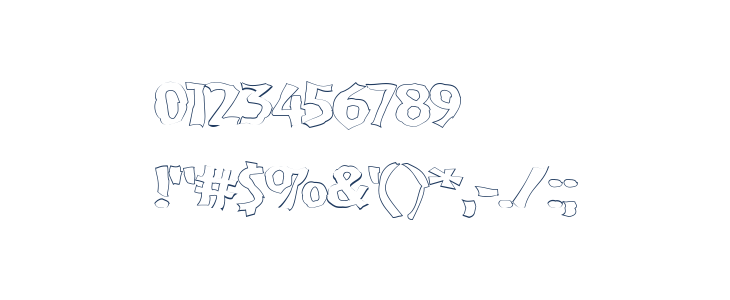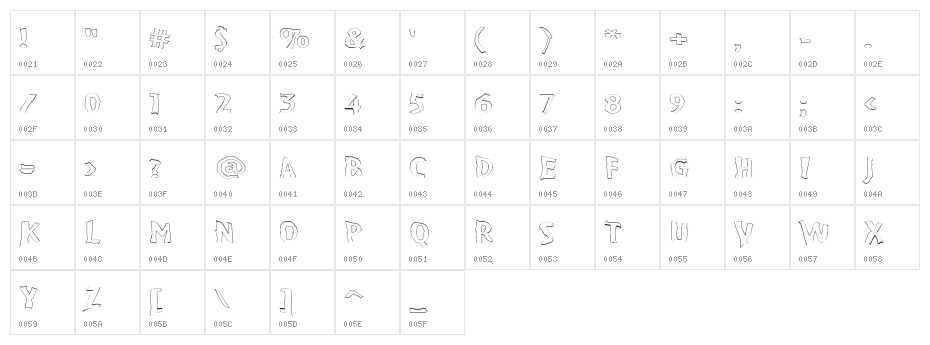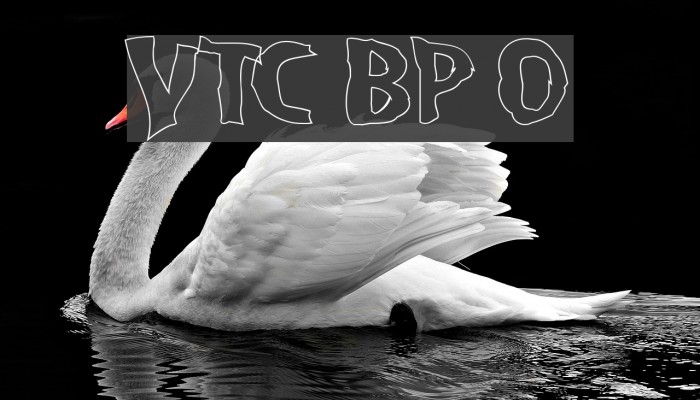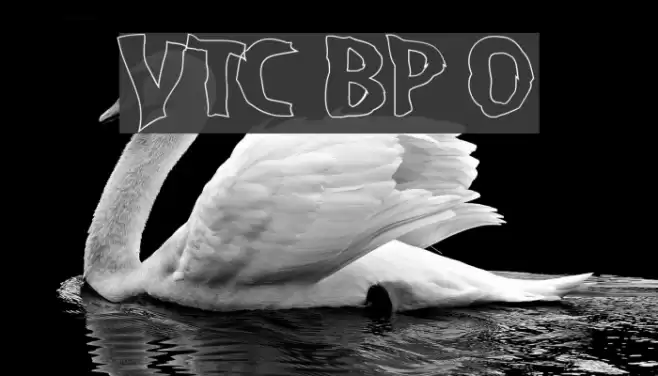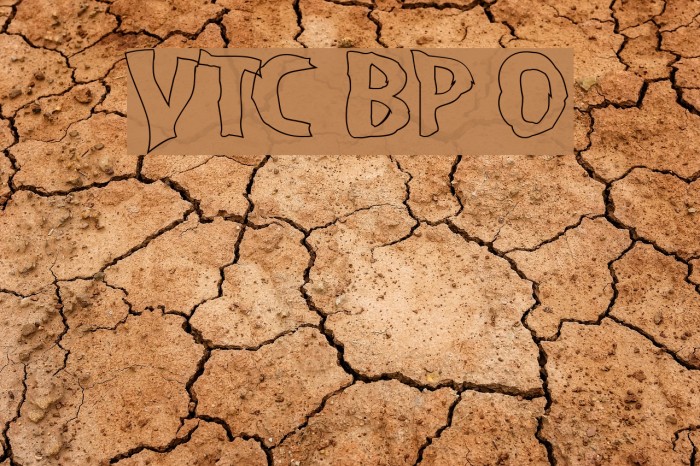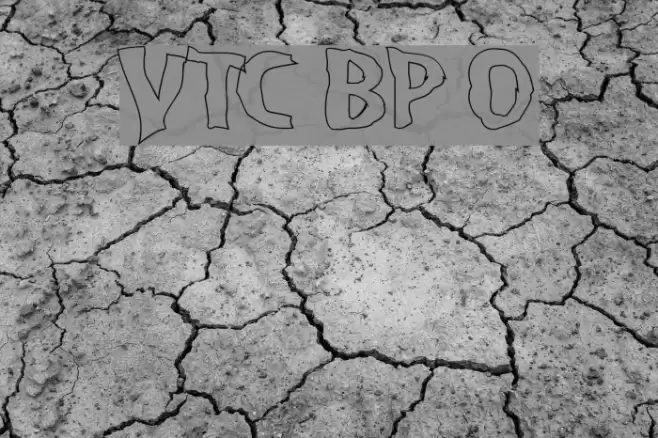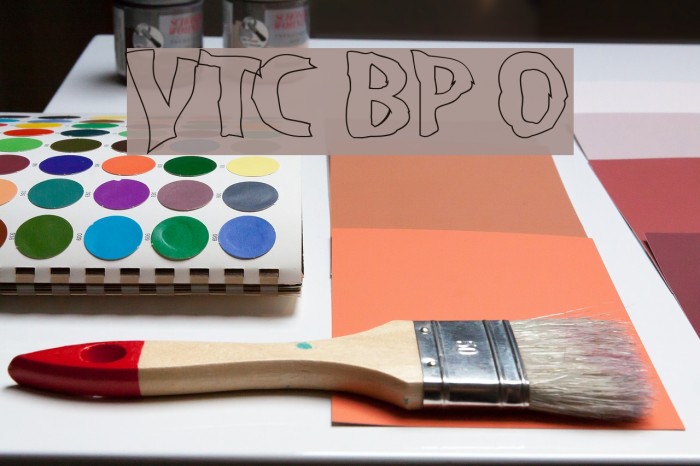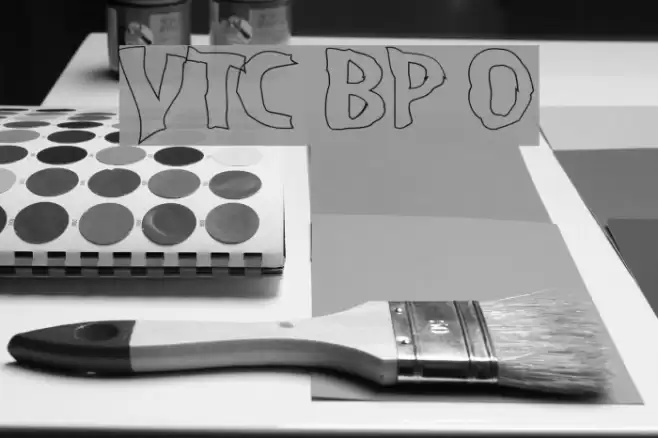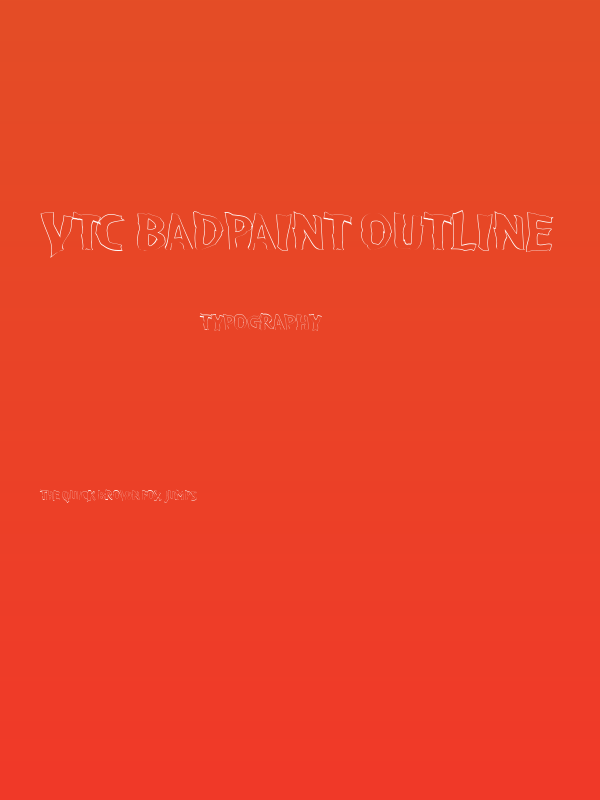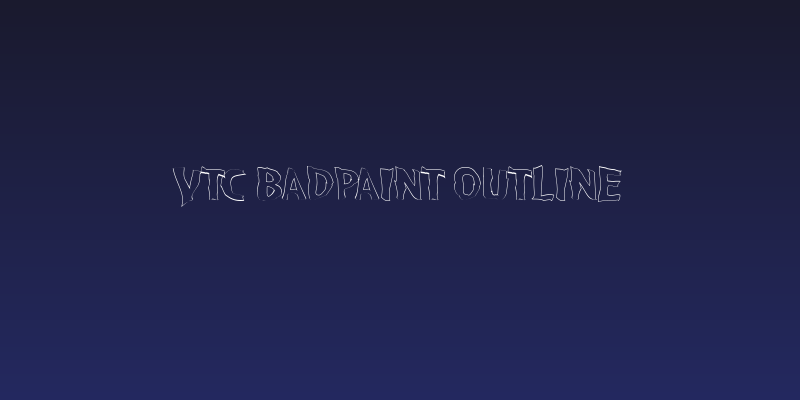
VTC BadPaint Outline Font
VTC BadPaint Outline Description
This font features a playful and irregular outline style, reminiscent of hand-drawn or graffiti art. The characters have a jagged, uneven appearance, giving them a dynamic and energetic feel. Each letter is uniquely shaped, with varying angles and curves, creating a sense of movement and spontaneity. The font's outline design adds a layer of depth and texture, making it stand out in any design project. Its quirky and informal nature makes it suitable for creative and unconventional applications.
| Proposed Projects | Ideal for posters, album covers, street art designs, and any project requiring a bold, artistic touch. |